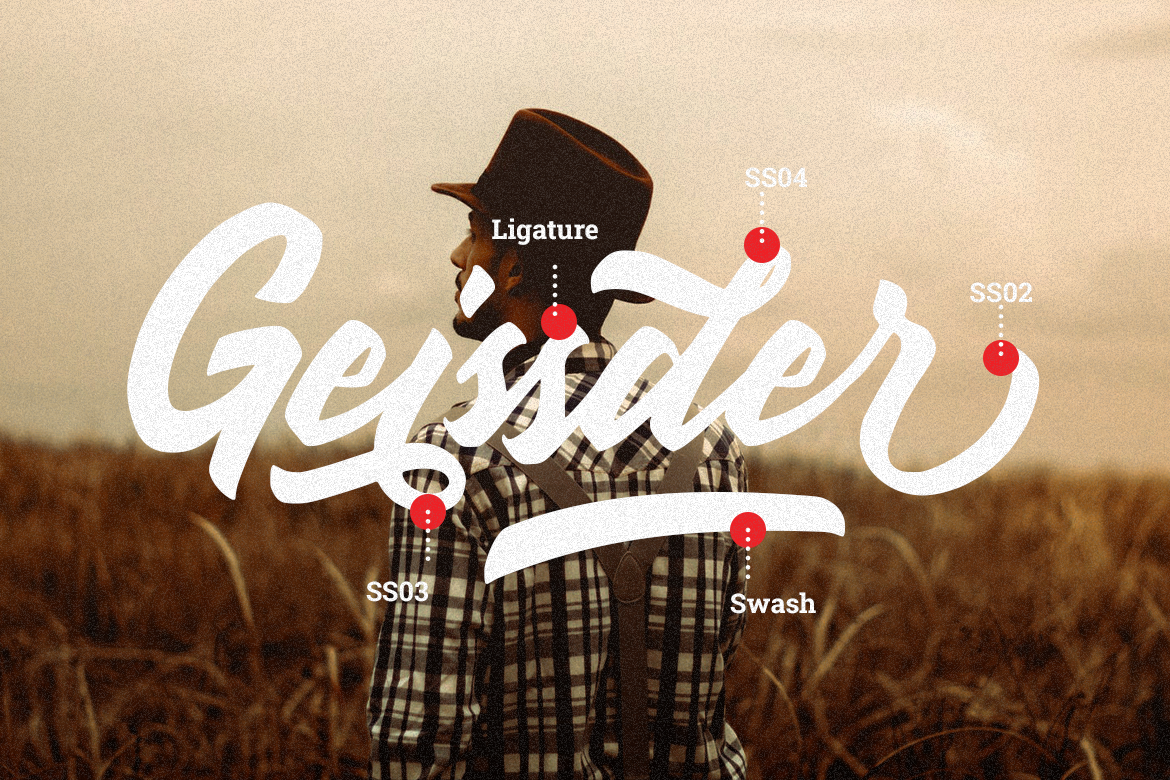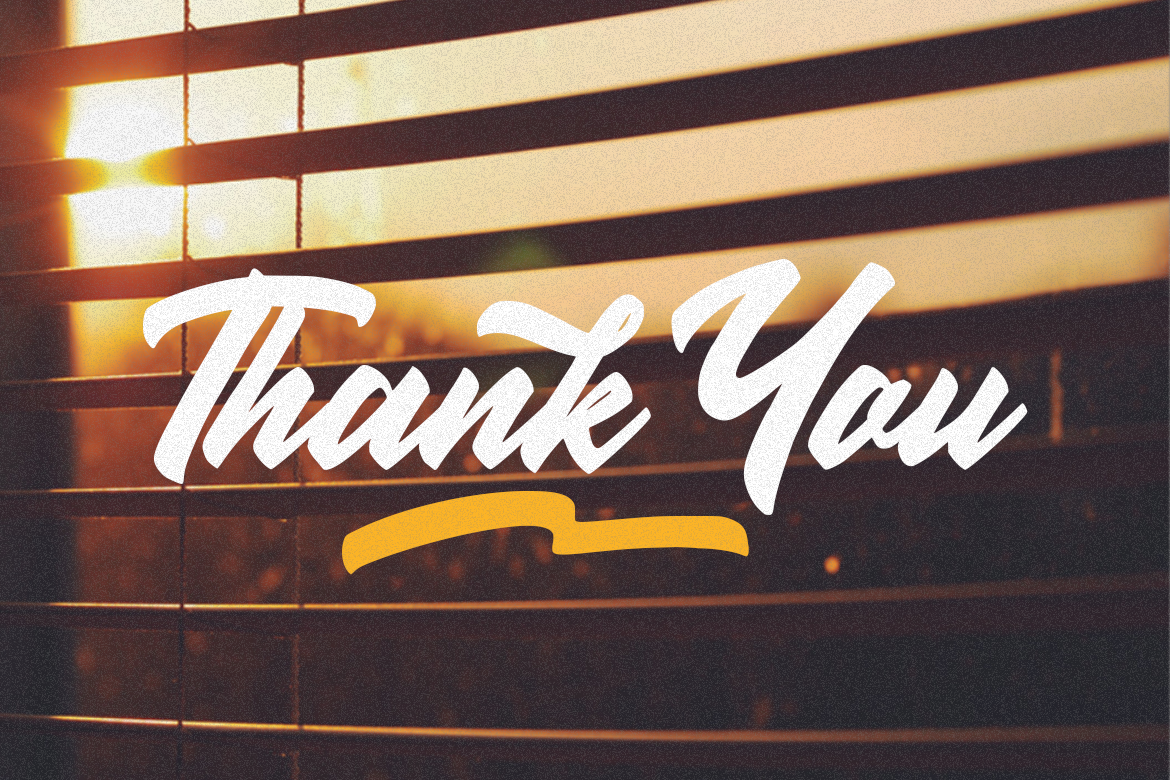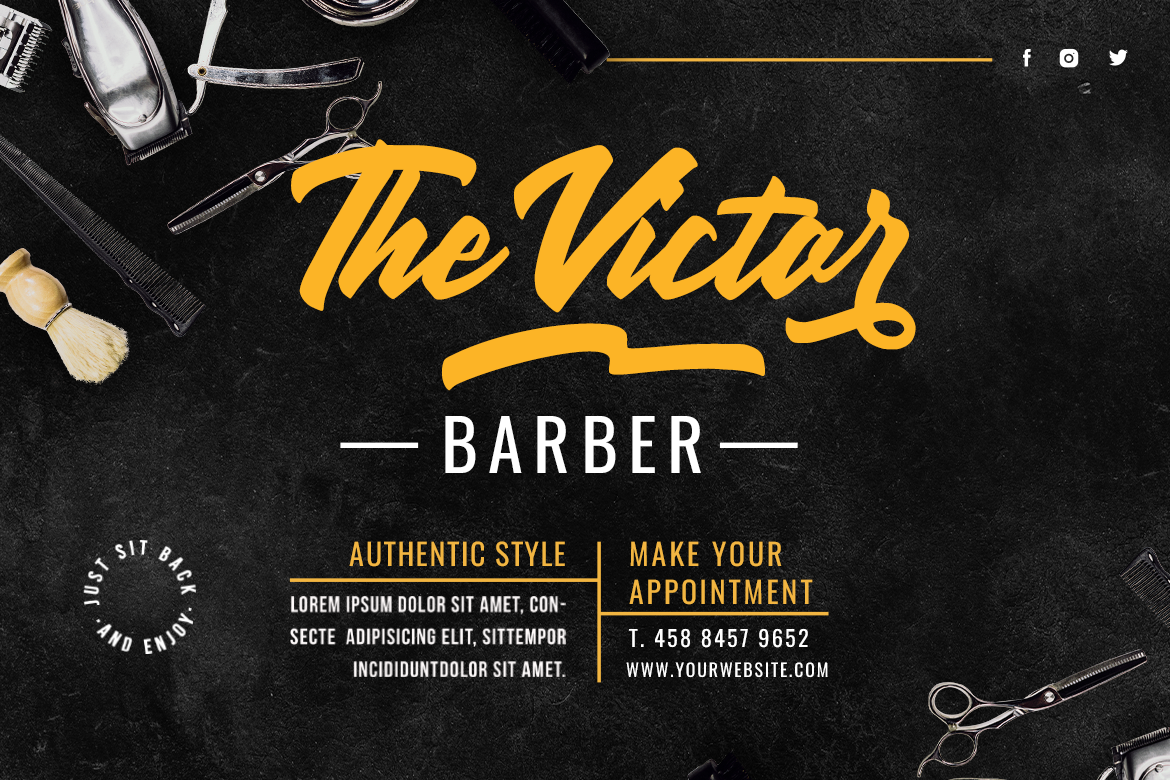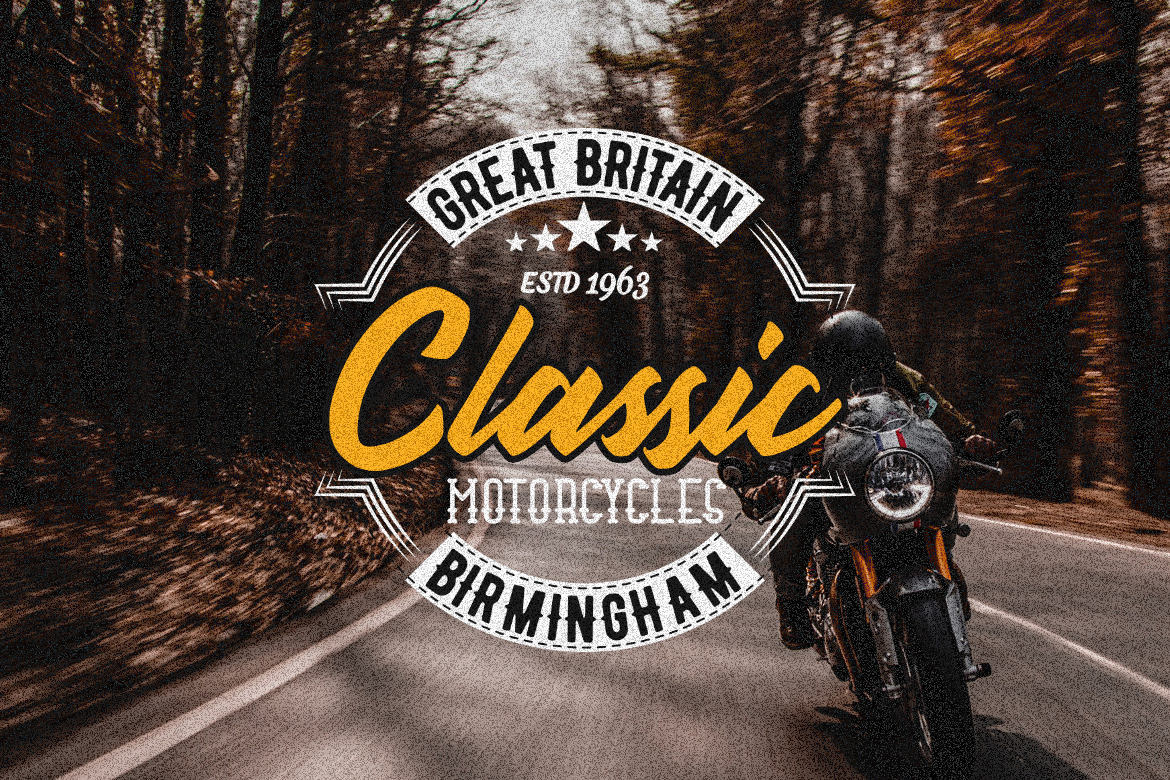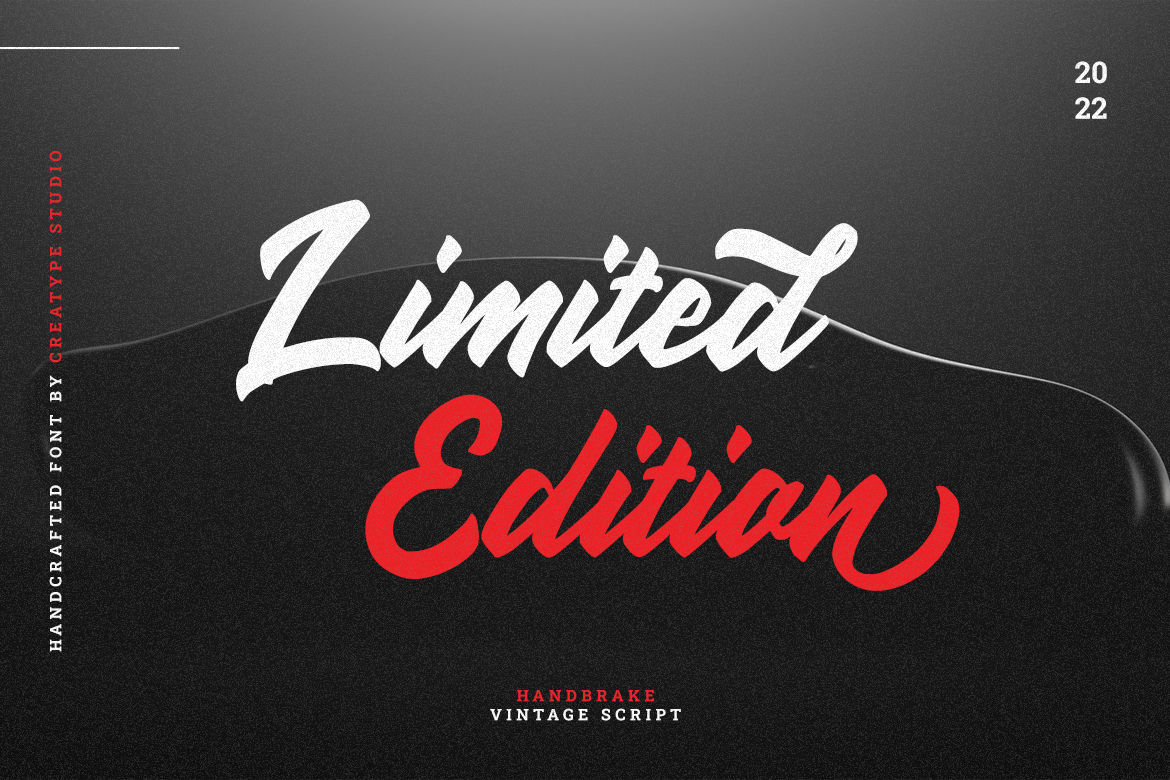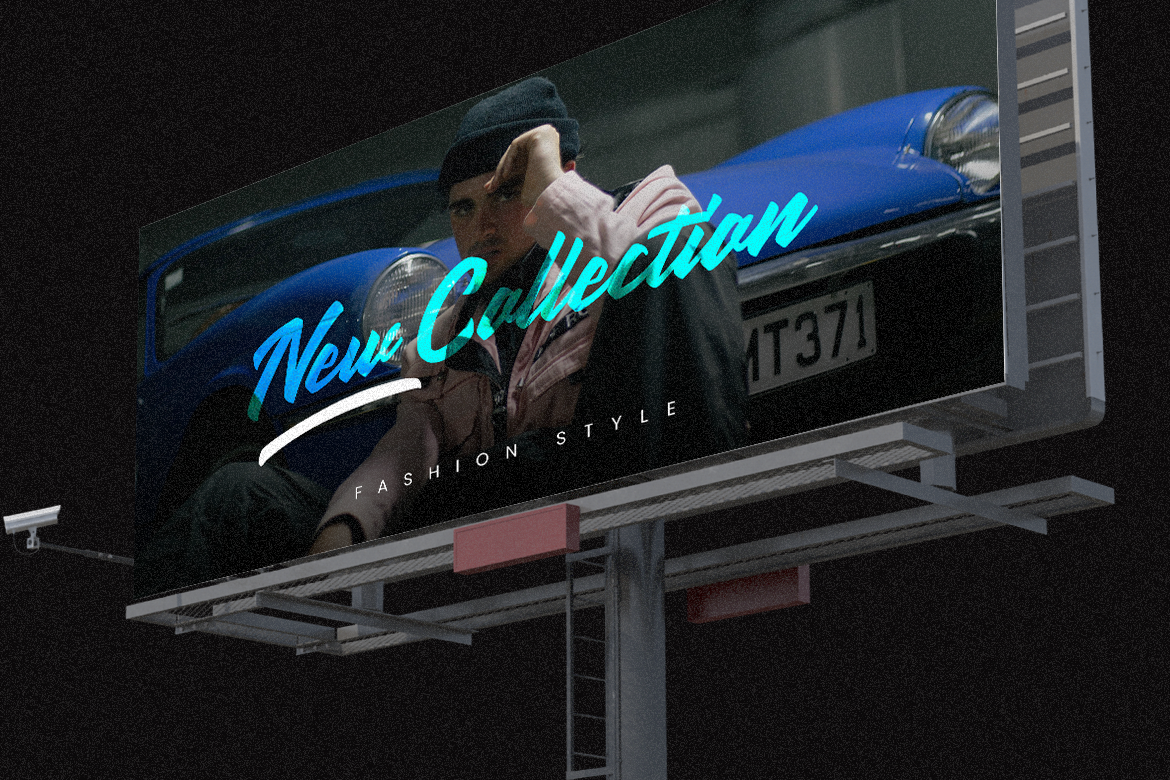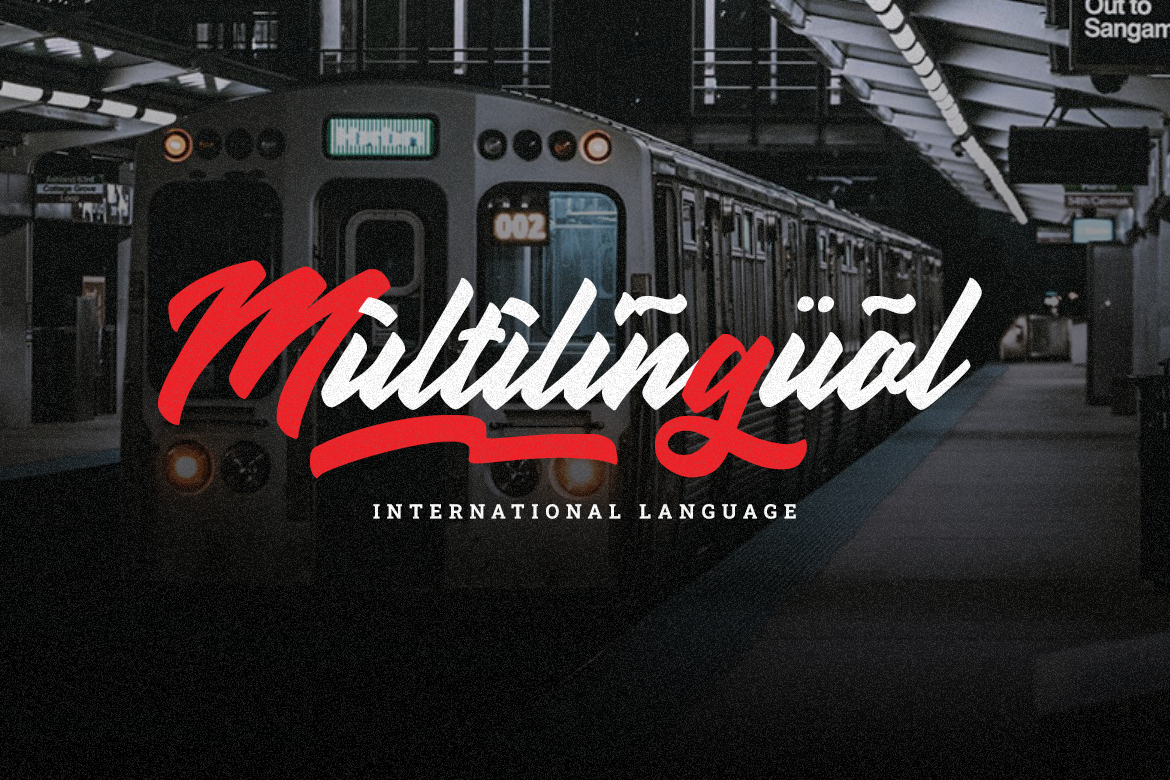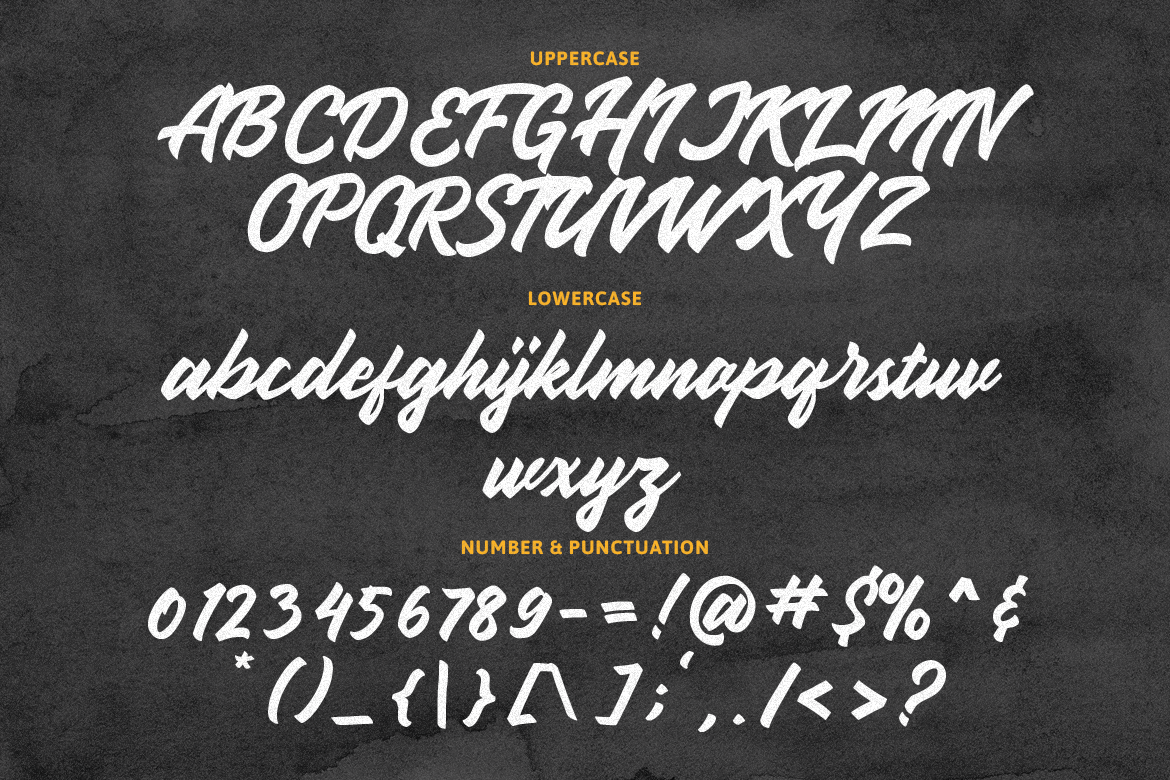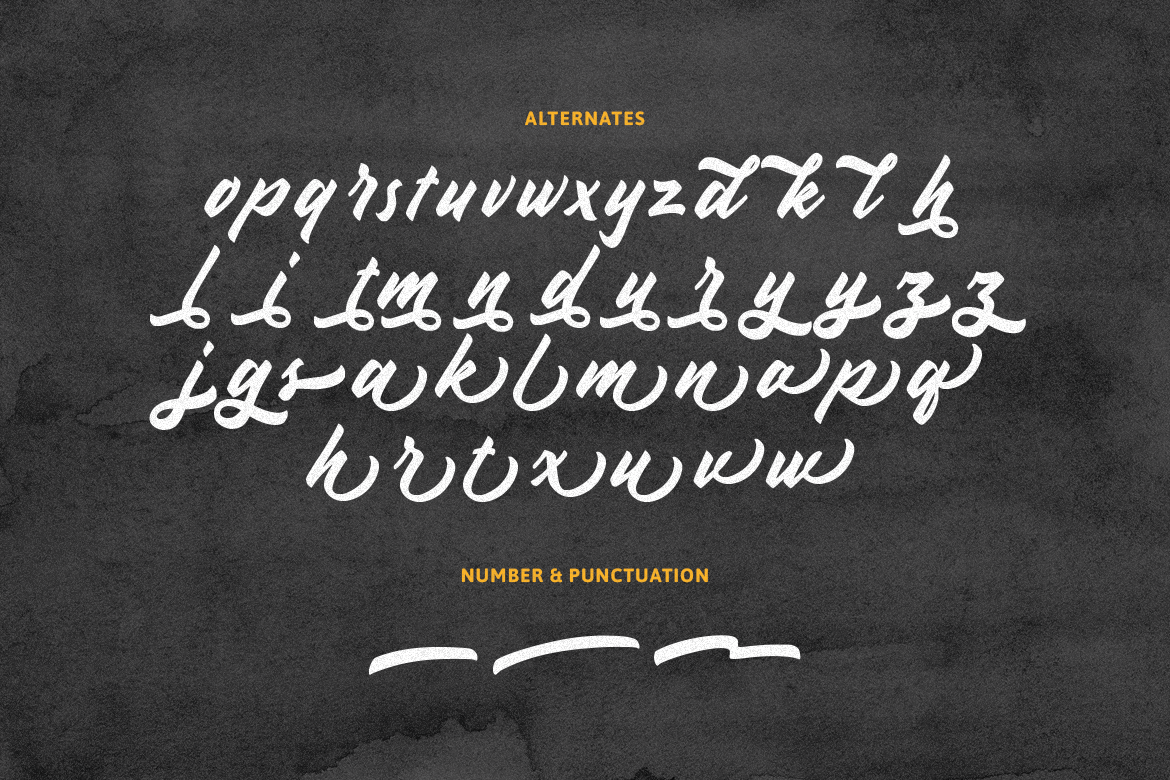
Handbrake – Big, bold brush, sliding smoothly on paper, written ‘Vintage’ on it. Handbrake, the vintage font never goes wrong. This vintage typeface that Creatype made is perfect for your outstanding design projects.
Handbrake is perfect for branding projects, logo, wedding designs, social media posts, advertisements, product packaging, product designs, label, photography, watermark, invitation, stationery and any projects that need handwriting taste.
• Fonts include multilingual support for; Afrikaans, Albanian, Czech, Danish, Dutch, English, Estonian, Finnish, French, German, Hungarian, Italian, Latvian, Lithuanian, Norwegian, Polish, Portuguese, Slovak, Slovenian, Spanish, Swedish.
Handbrake Stylish Handlettering